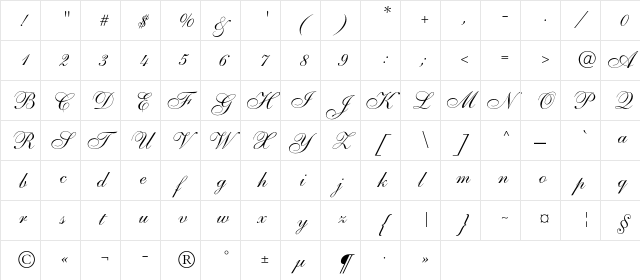
AllegroScript Italic
Design Context for AllegroScript Typeface
AllegroScript brings a calligraphic fluidity to the page — its connecting strokes and expressive curves give it an unmistakably human quality.
Font Pairing: Combine AllegroScript with a simple geometric sans for maximum contrast — the tension between flowing curves and clean structure is a classic typographic pairing.
Pro Tip: Pair AllegroScript with a clean sans-serif for supporting text. The contrast between fluid script and geometric structure creates an elegant typographic hierarchy.